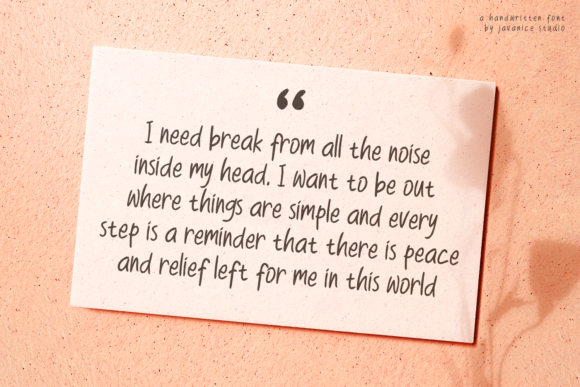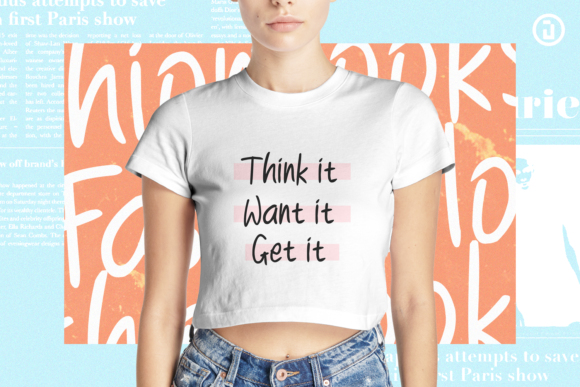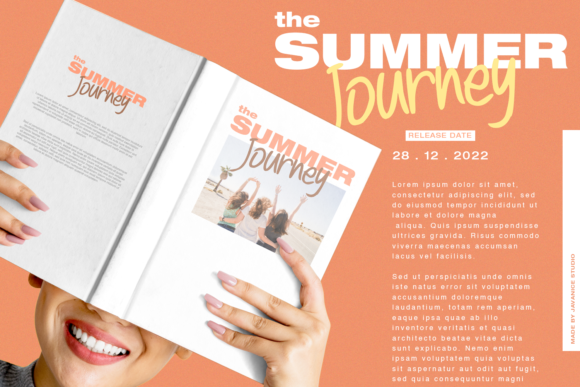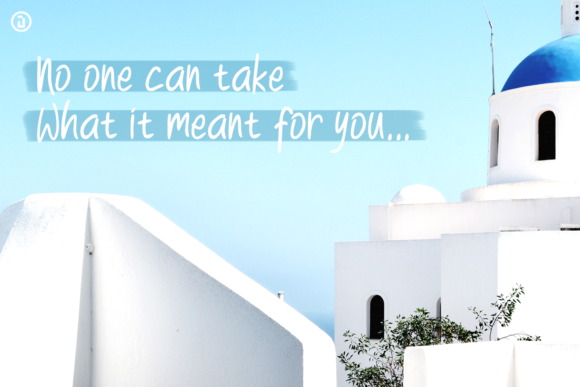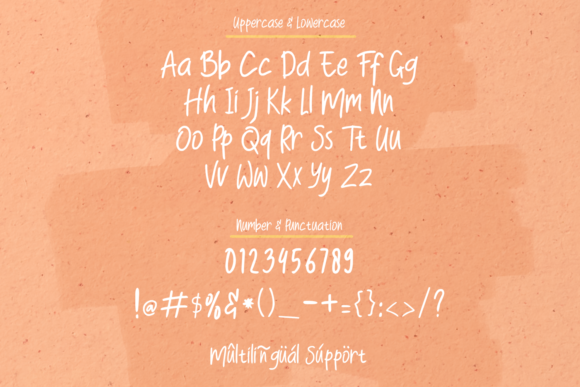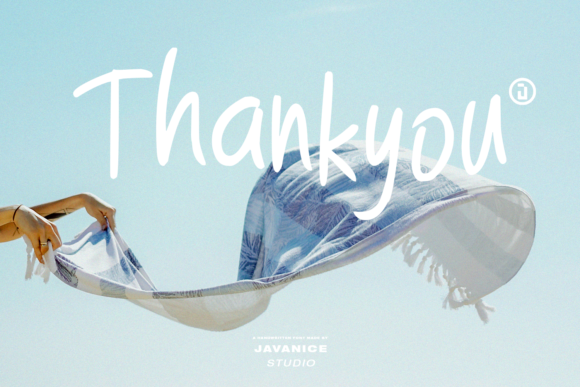
Introduction to Mainliners Font
Do you remember that moment when a beautiful handwritten font captured your attention, and you just knew it had to be part of your next creative project? For many designers, that moment is what makes their job so exciting. The Mainliners Font is one of those magical finds, perfect for adding a touch of personality to your work.
With its relaxed and casual feel, the Mainliners Font is a valuable asset for designers looking to elevate their branding projects, magazine covers, or social media presence. Its high-quality design makes it an ideal choice for product packaging, wedding invitations, and more. The best part? This beautiful font is available for free download, making it an accessible design resource for creatives of all levels.
Whether you’re working on a complex design project or just want to add some flair to your social media posts, the Mainliners Font is sure to impress. Its transparent background allows for seamless integration with your design, making it a versatile and must-have font for any creative project.
Mainliners Font
- High-quality font suitable for creative projects, offering a unique and stylish design.
- Mainliners Font comes with a transparent background, providing flexibility for designers to use it with various backgrounds.
- Unique characteristics: Mainliners Font features a distinctive and modern design, making it perfect for designers looking for a high-quality font to elevate their creative project.
Honest Review: Mainliners Font
I recently stumbled upon the Mainliners Font while searching for a free download to enhance a creative project. I must say, I was impressed by its quality and versatility. The font is a great addition to any design resource collection.
Here are some aspects that I think work well:
- ✨ The Mainliners Font offers a high level of customization, allowing designers to adjust the font to suit their needs.
- ✨ The transparent background option provides a seamless integration with any design, making it easy to work with.
Overall, I think the Mainliners Font is a great design resource that can add value to any creative project. While it has some limitations, its quality and versatility make it a worthwhile download for designers.
Tips for Getting the Most Out of Mainliners Font
To get the most out of the Mainliners Font, use it with a transparent background to create a clean and modern look. You can also use it in combination with other design elements to create a unique and eye-catching design.
The Mainliners Font is commonly used in logos, brochures, and other marketing materials. It is also used in graphic design, web design, and other creative projects where a high-quality font is needed.